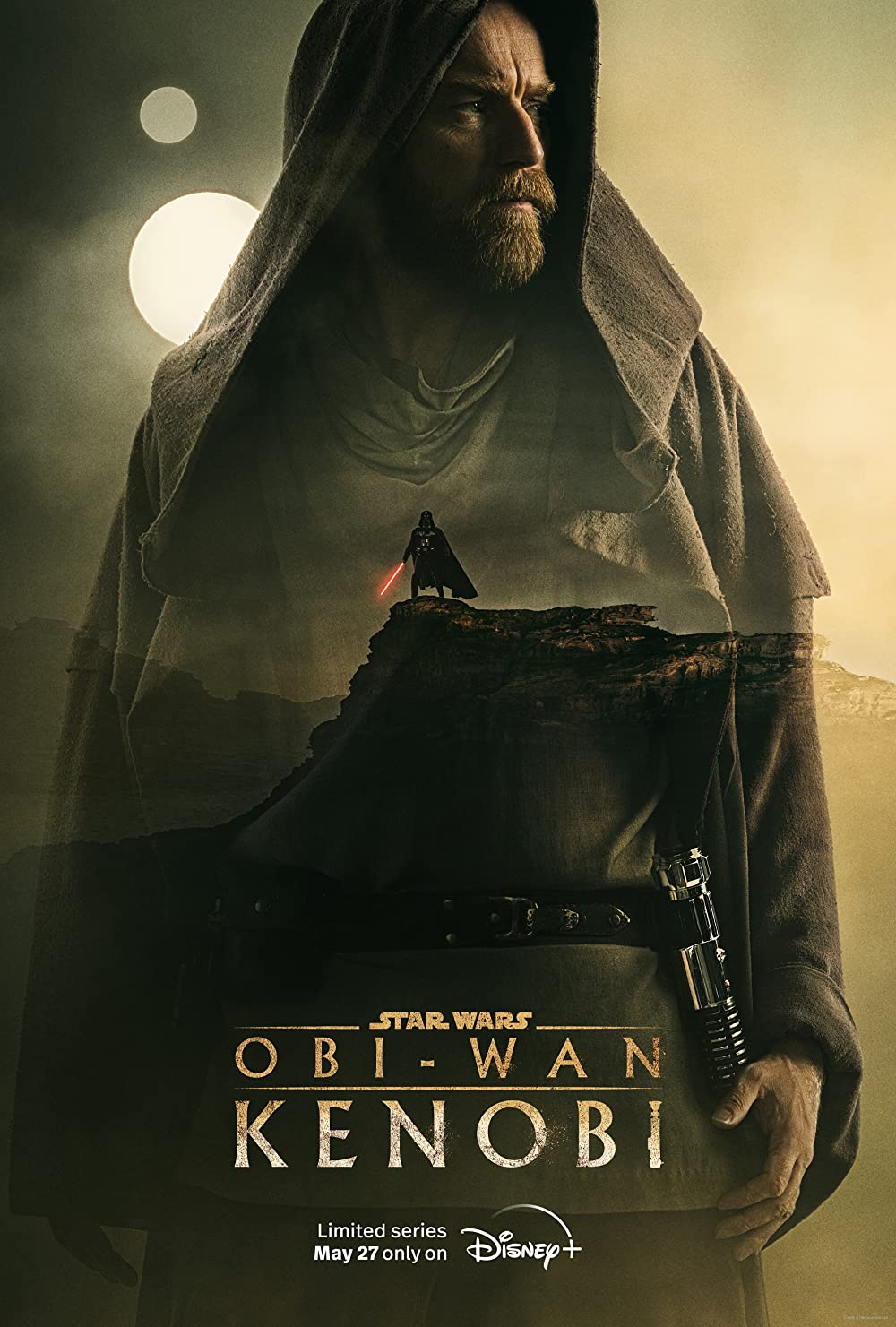
Obi-Wan Kenobi Font
ActionObi-Wan Kenobi is an American television miniseries created for Disney+. Set 10 years after the events of Star Wars: Episode III – Revenge of the Sith and Star Wars: Episode IV – A New Hope, follow the character of Obi-Wan Kenobi as he sets out to rescue Princess Leia from the Galactic Empire.
Albertus is a chiseled serif face used in the TV title. Designed by Berthold Wolpe in the 1930s, Albertus was named after the German philosopher and theologian Albertus Magnus.